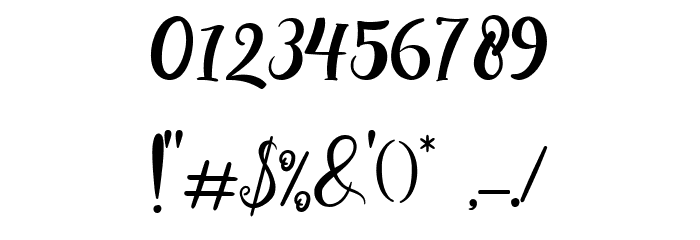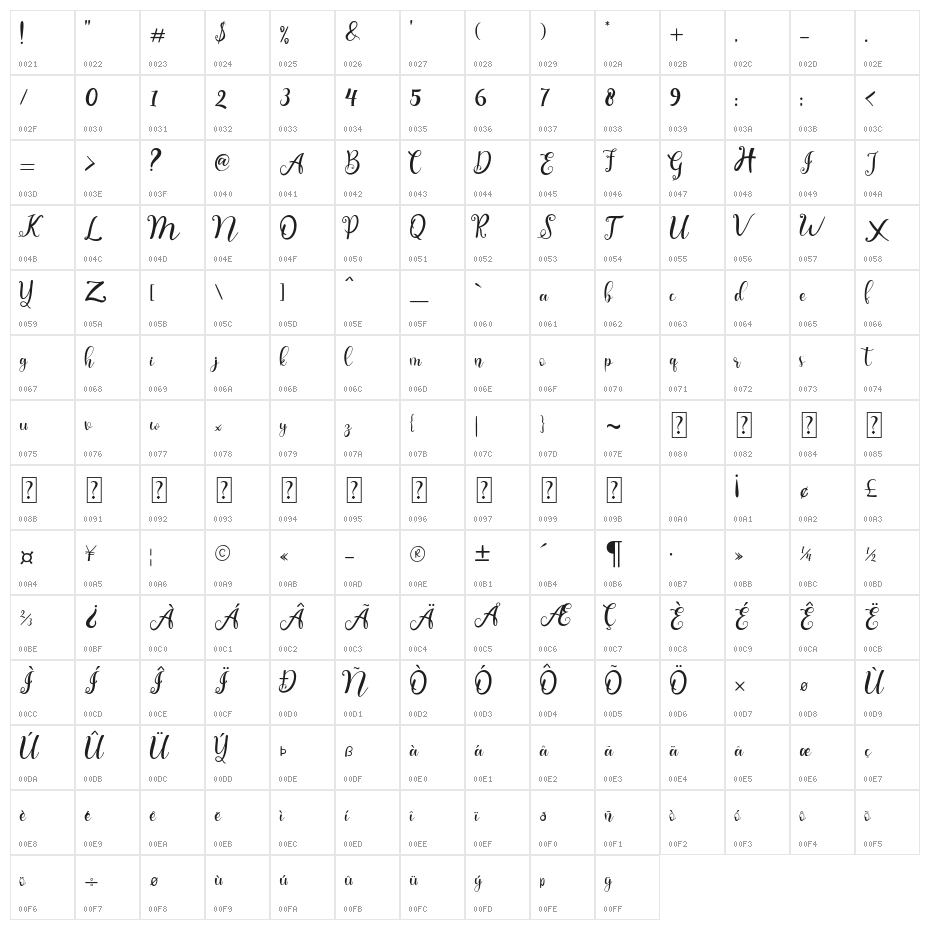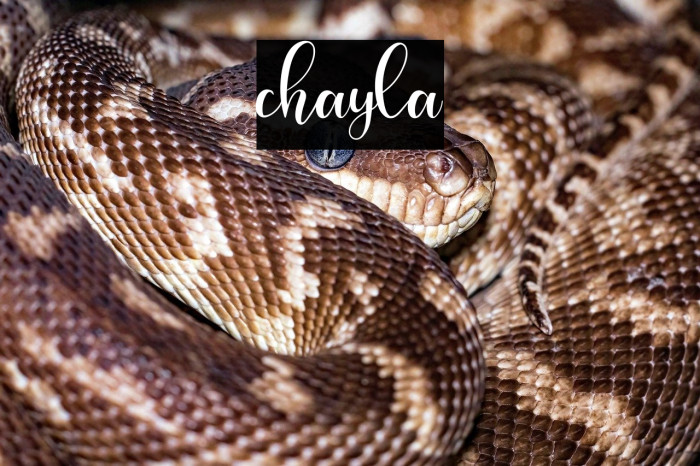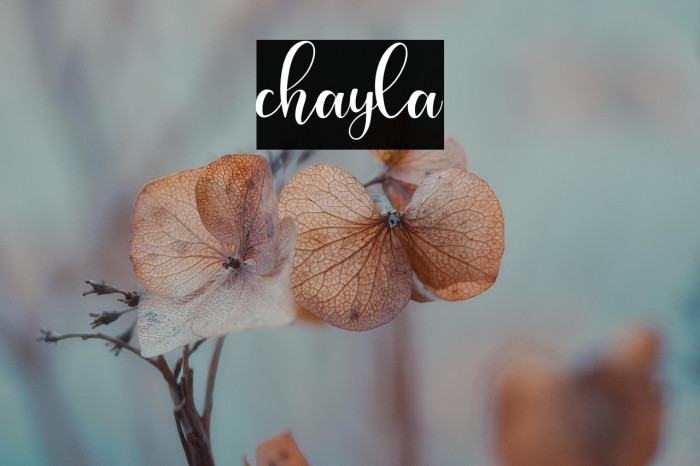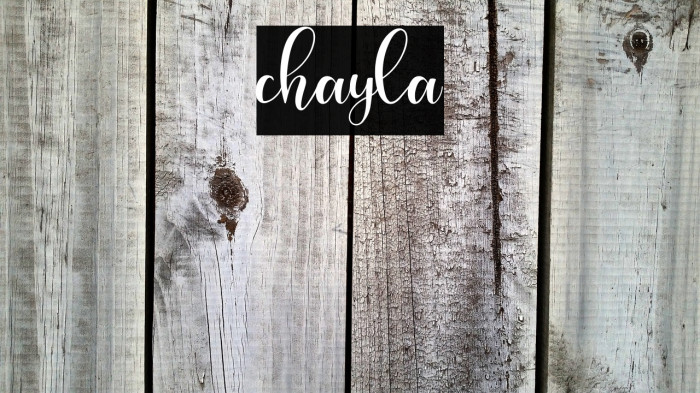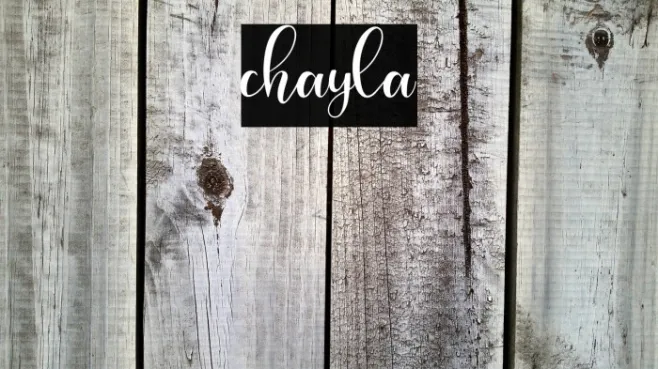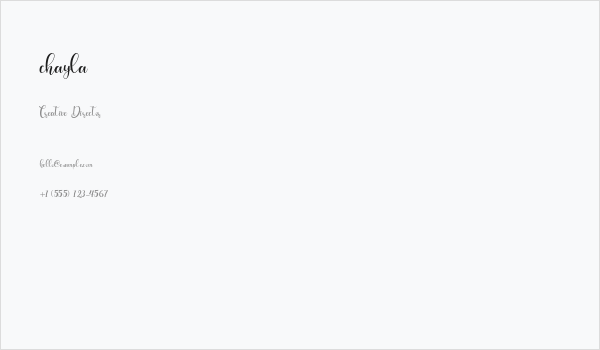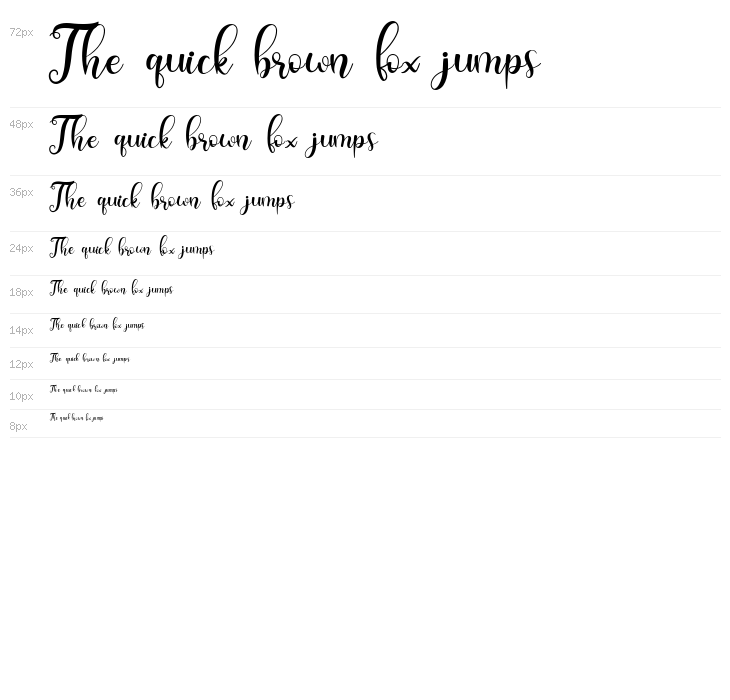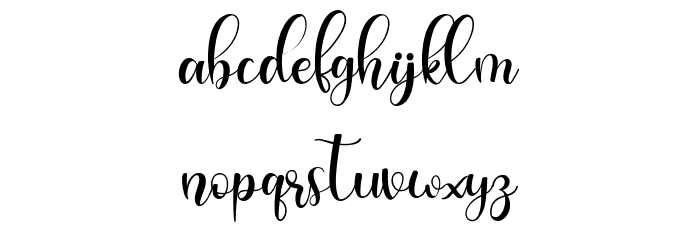
chayla Font
chayla Description
This elegant script font features flowing, cursive letterforms with intricate swashes and flourishes. The uppercase letters are particularly ornate, with loops and curves that add a sense of sophistication and grace. The lowercase letters maintain a consistent style, offering a harmonious blend of readability and decorative flair. The numerals are bold and slightly more straightforward, providing a nice contrast to the elaborate letters. Special characters are designed to complement the overall aesthetic, making this font suitable for a variety of creative applications.